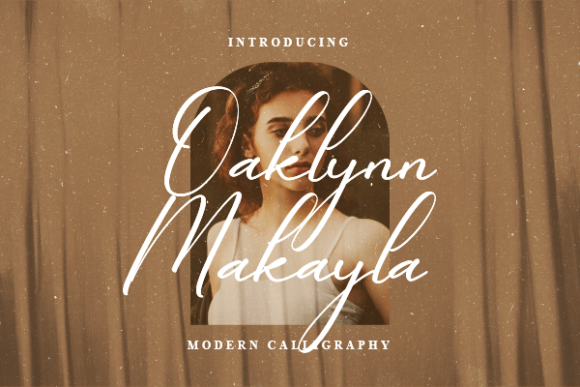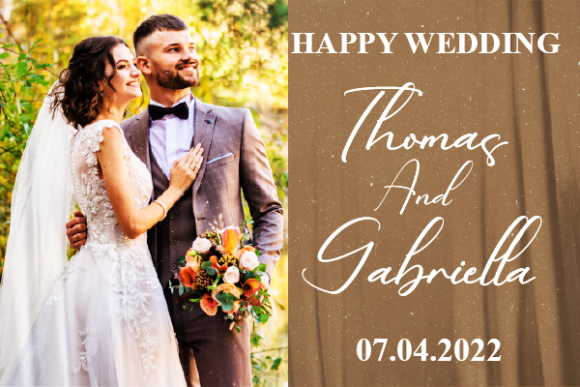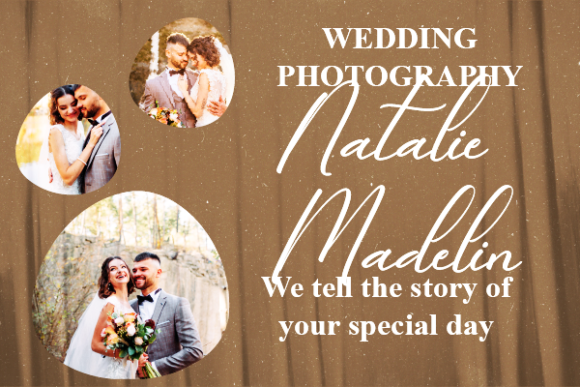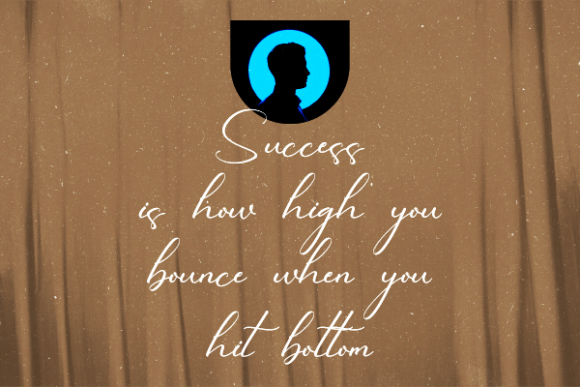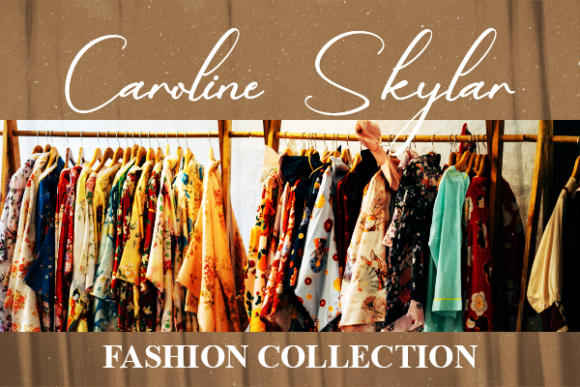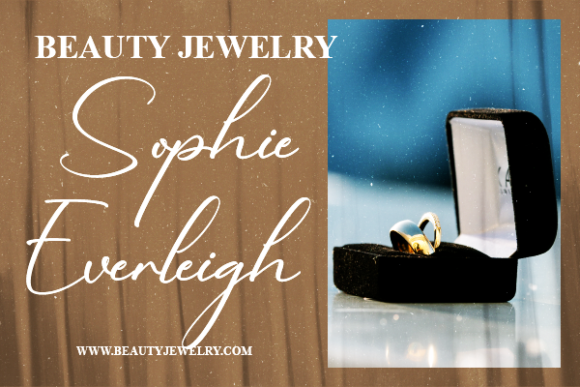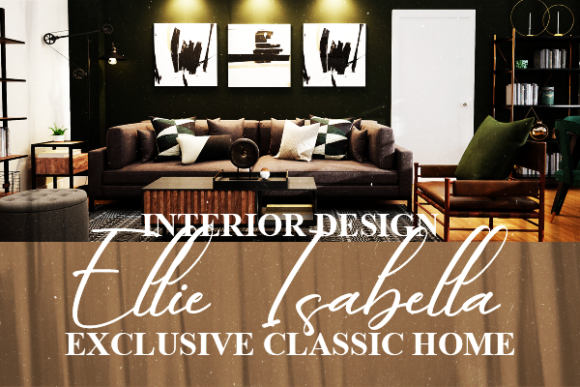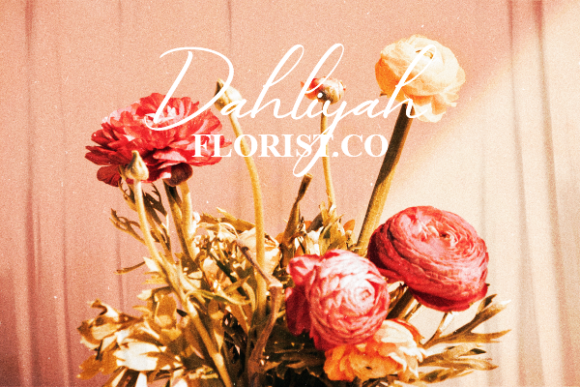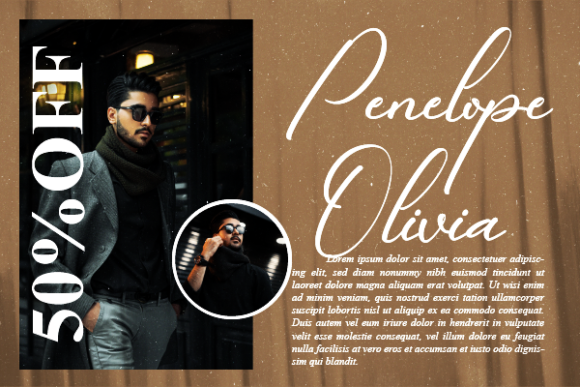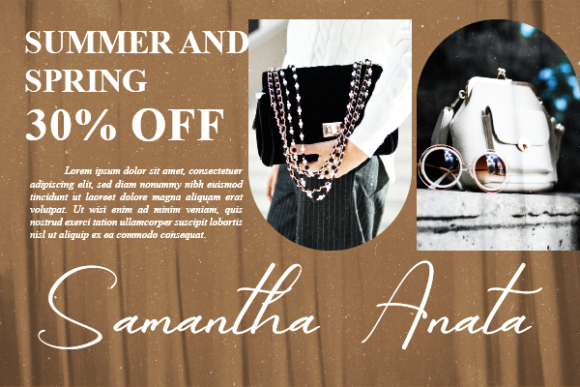
Oaklynn Makayla Font
About Oaklynn Makayla Font
Oaklynn Makayla is a casual and stylish script font that brings a laid-back yet fashionable vibe to your design projects. With its versatile nature, it’s an excellent choice for a variety of branding and creative applications, allowing you to achieve remarkable results across different contexts.
Logos: Oaklynn Makayla adds a touch of modernity to logos, making them stand out and leaving a memorable impression. Its relaxed strokes and flowing characters lend a unique identity to your brand, whether it’s for a trendy startup or a creative venture.
T-shirt Printing: The font’s casual and fashionable appearance makes it an ideal option for t-shirt designs. From quirky quotes to artistic graphics, Oaklynn Makayla will complement your creative ideas, ensuring your designs resonate with the target audience.
Creative Products: When used on packaging, labels, and other creative products, Oaklynn Makayla can elevate the overall aesthetic. Its relaxed yet stylish demeanor adds a touch of elegance, making your products visually appealing and attractive.
Social Media Graphics: Create eye-catching and shareable social media posts using Oaklynn Makayla. Its contemporary style makes it perfect for conveying messages, quotes, and announcements in a visually appealing manner, grabbing your audience’s attention.
Invitations and Stationery: For events such as parties, weddings, or special occasions, Oaklynn Makayla brings a relaxed yet sophisticated feel to invitations and stationery. Its versatility ensures that your designs capture the desired mood and atmosphere.
Overall, Oaklynn Makayla is a font that effortlessly combines relaxation with style, making it a valuable asset for a wide range of design projects. Its ability to adapt to various contexts while maintaining its fashionable edge makes it a go-to choice for anyone seeking a casual yet chic script font.